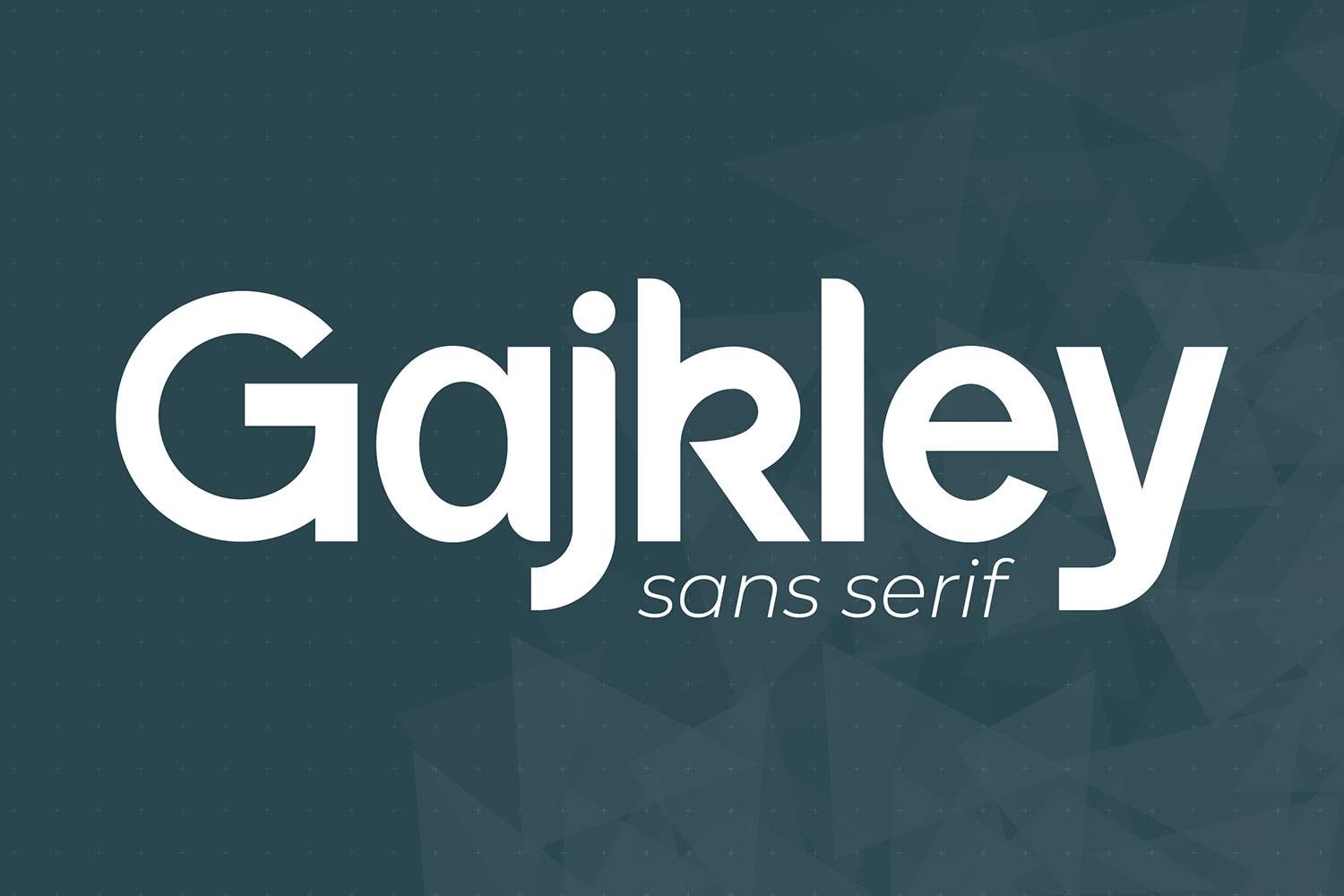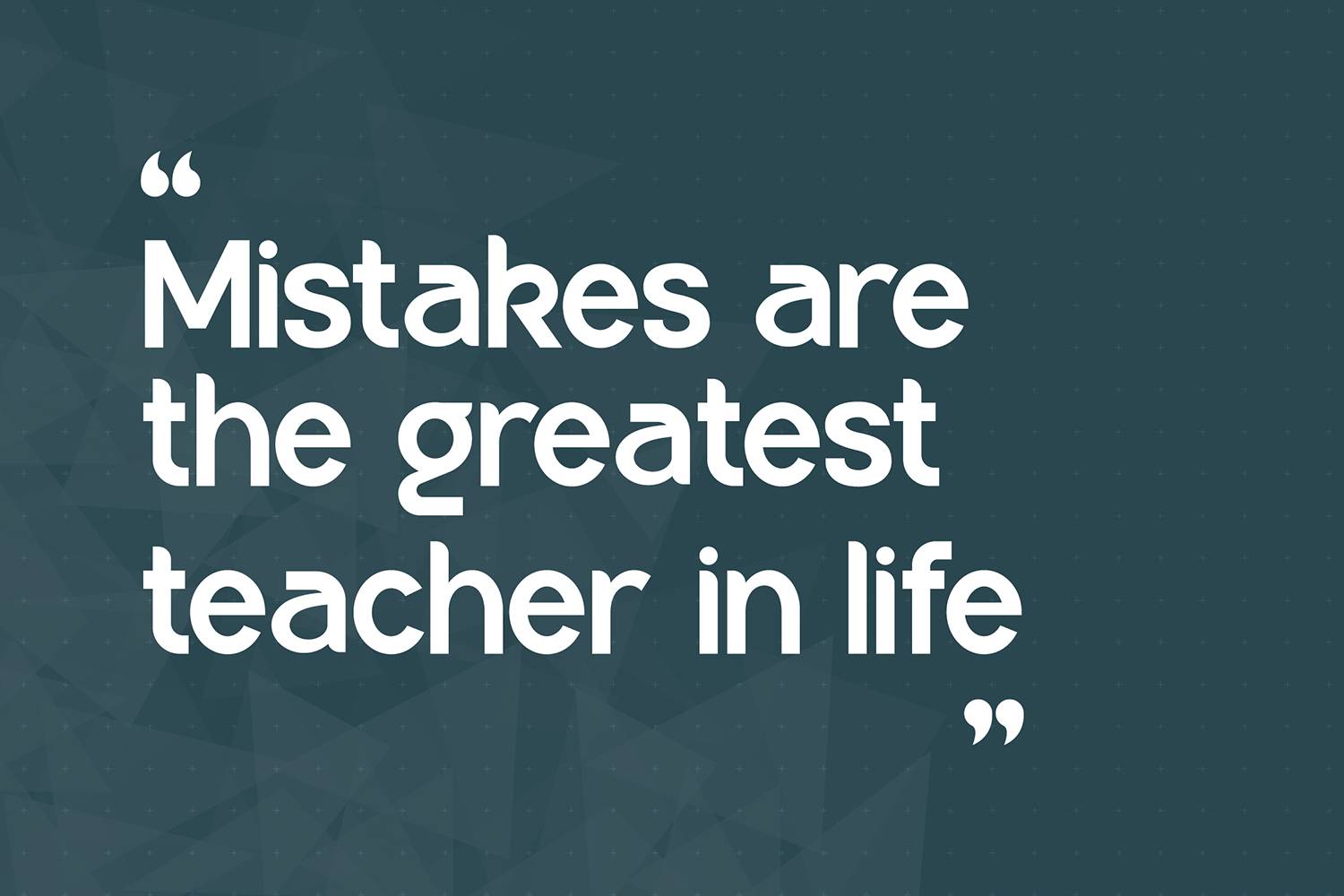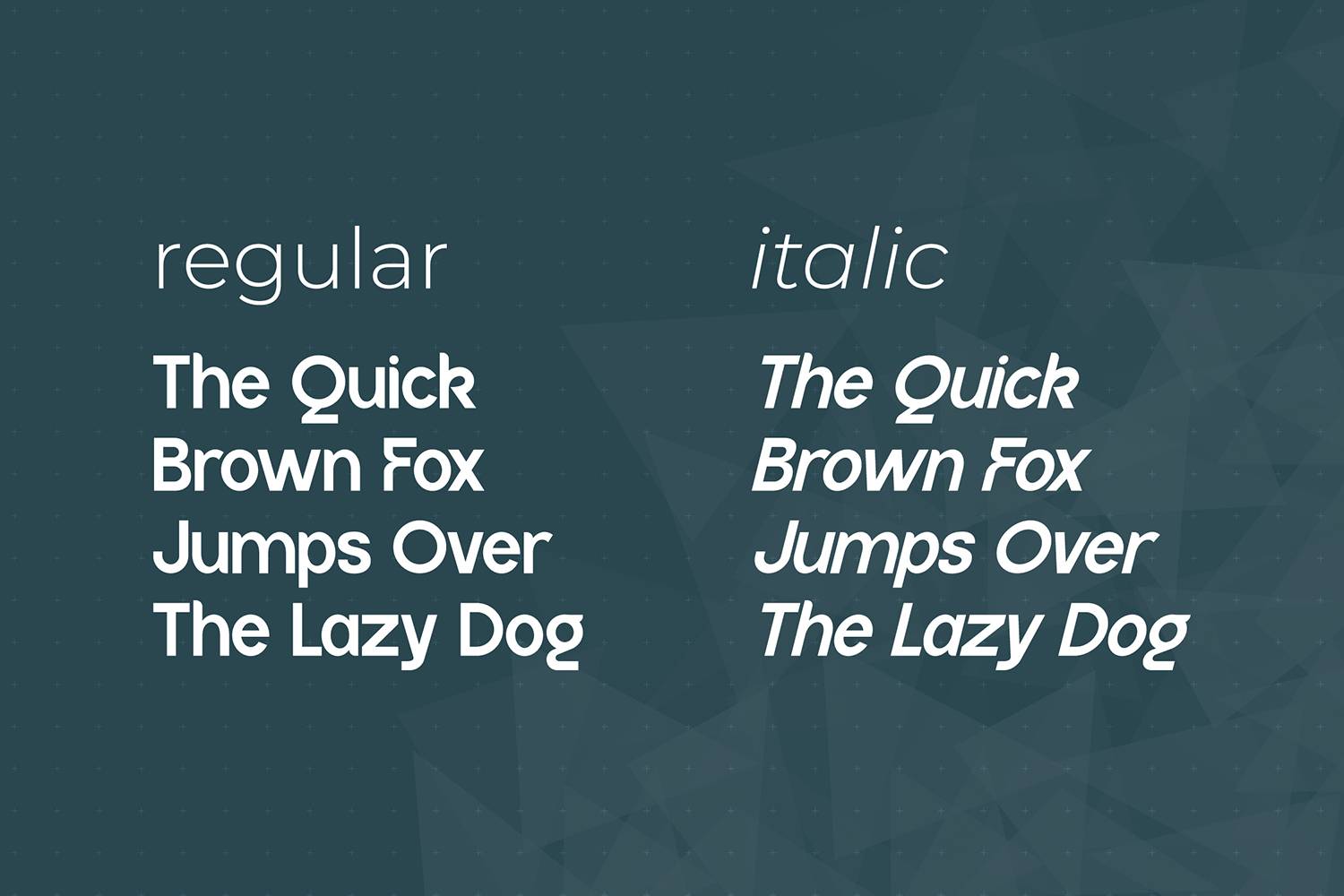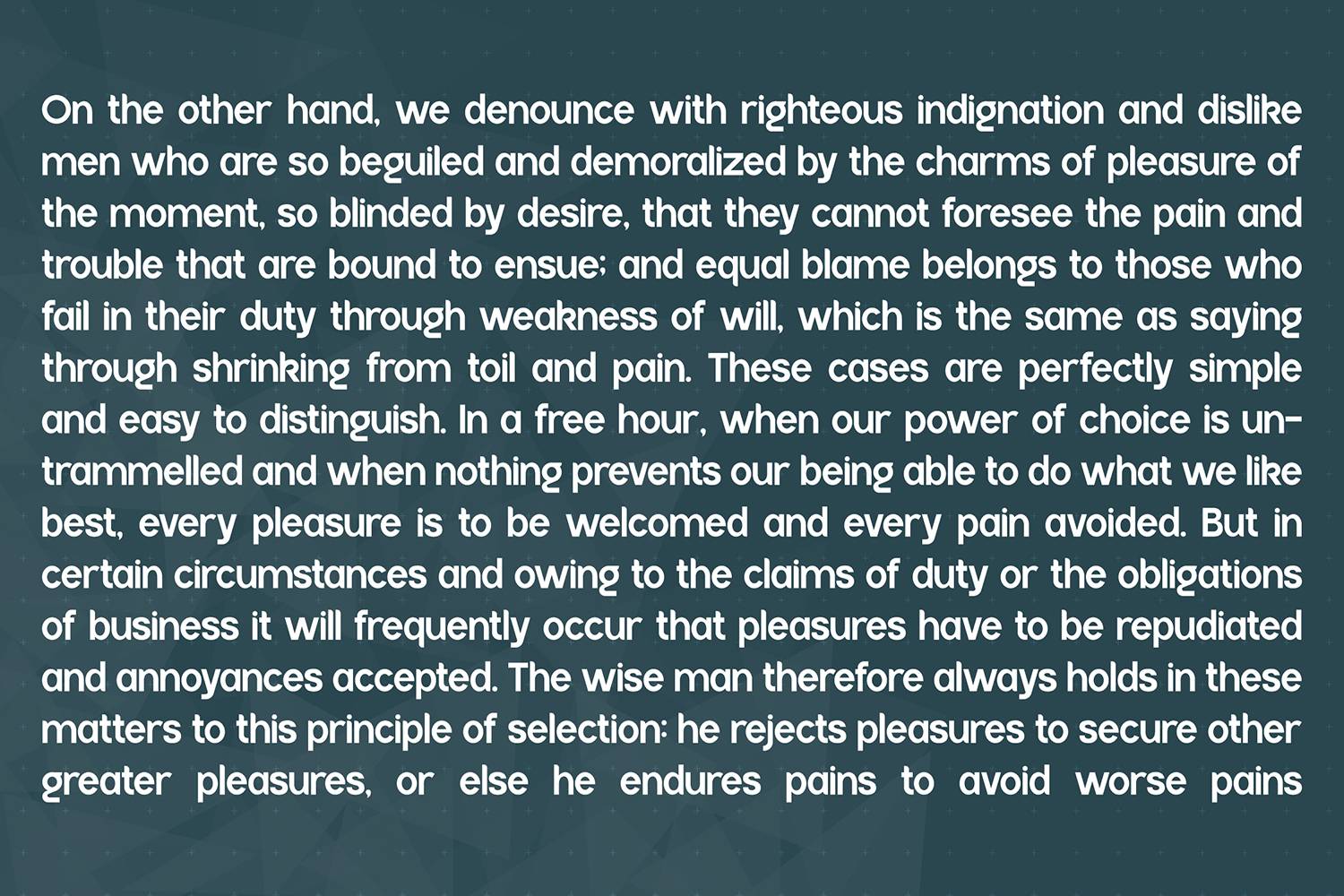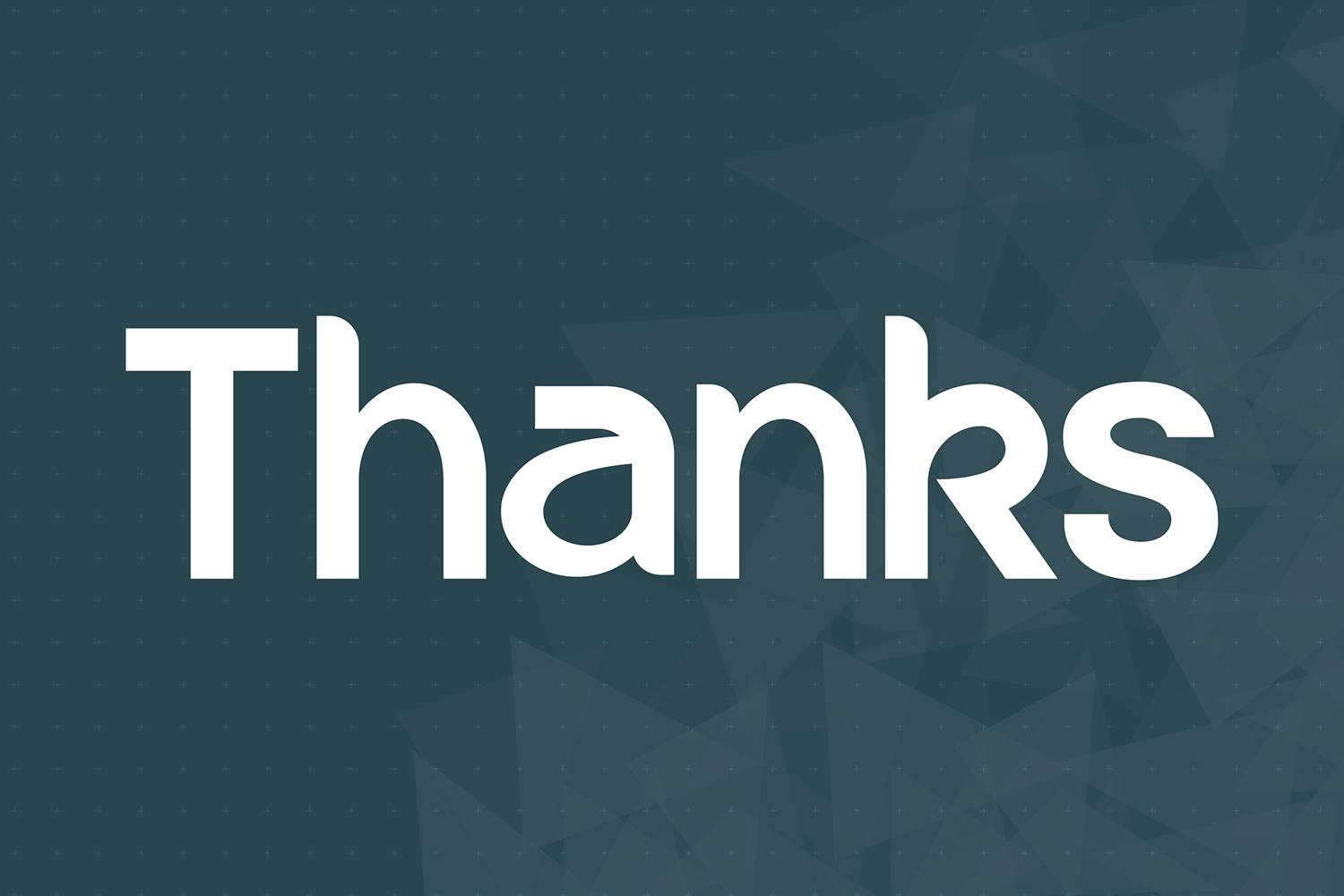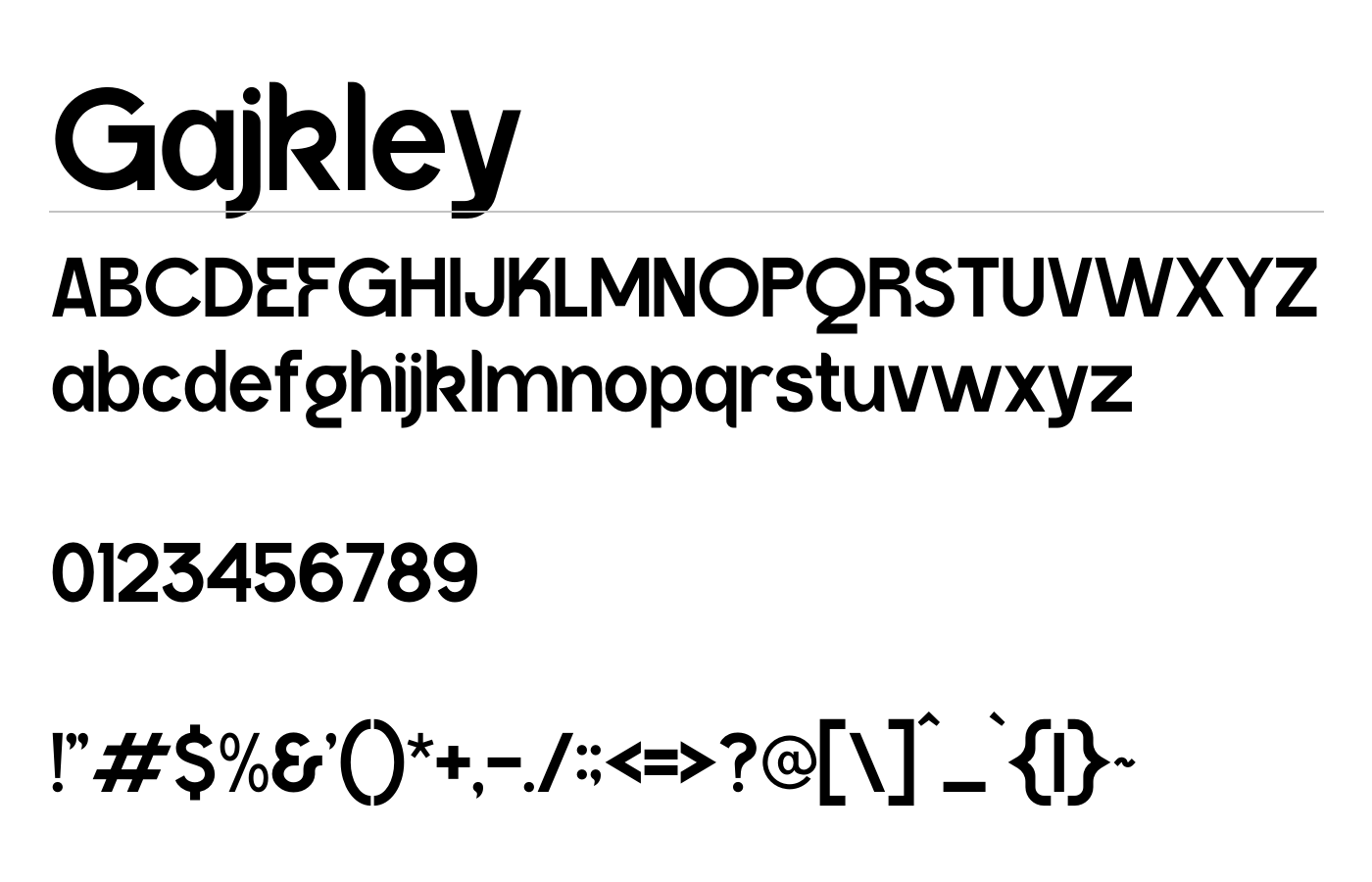
Gajkley is a bold, geometric sans serif font with a modern and slightly quirky character, featuring clean lines and distinctive, playful letterforms like its unique 'g' and 'Q' tail. Its strong presence and balanced proportions make it ideal for eye-catching headlines, branding, and editorial use where a contemporary, confident style is desired. This font works well for creative industries and modern designs seeking a friendly yet professional tone.
Gajkley Font
About Gajkley Font